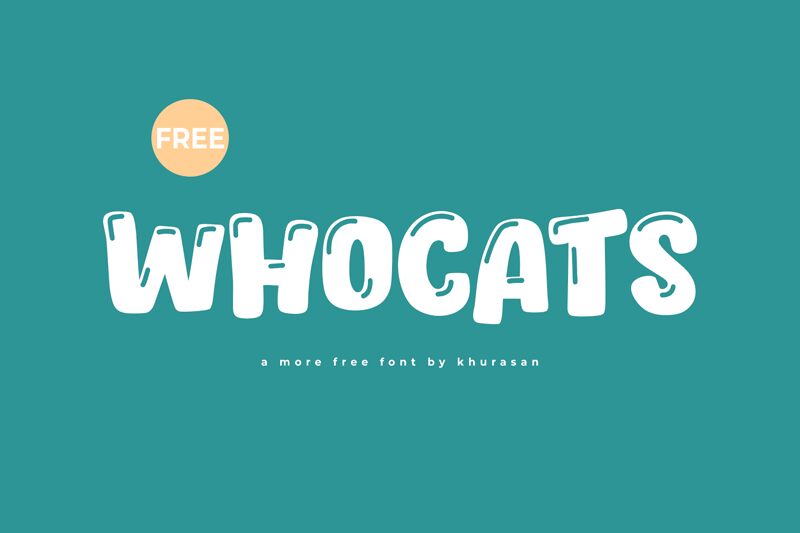
Whocats
Whocats, designed by Khurasan, is a captivating display font that exudes a playful and whimsical character. This cartoon-style typeface boasts bold letterforms that command attention and convey a sense of friendliness and fun. The rounded edges and bouncy rhythm create an inviting aesthetic that's hard to ignore.
Ideal for projects that require a touch of lightheartedness, Whocats shines in contexts like children's books, playful branding, party invitations, and any design space where joy is paramount. Its sturdy yet charming appearance ensures readability while adding personality to your creative endeavors.